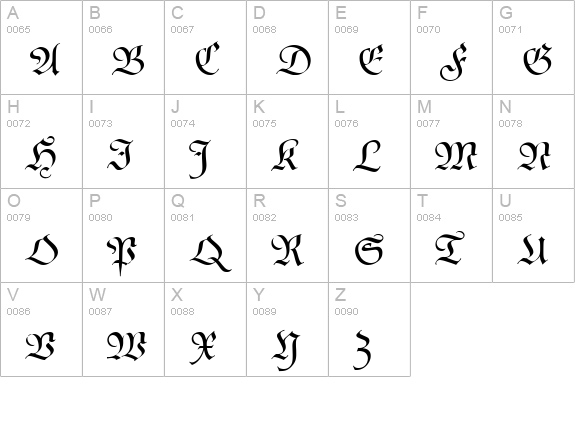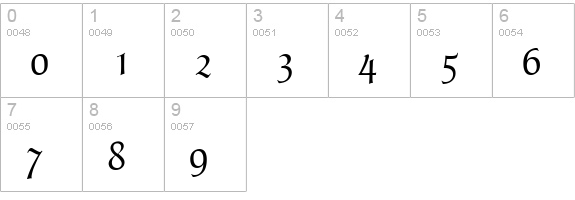
Poppl-Fraktur is a beautifully crafted typeface that effortlessly combines traditional calligraphic elements with a modern flair. Its intricate Fraktur style exudes elegance and sophistication, making it perfect for projects that require a touch of class and refinement. The sharp angular shapes and intricate details of each letter create a striking visual impact, while the overall design maintains a sense of balance and harmony. One of the best things about Poppl-Fraktur is that it is completely free to download at FontsMarket.com. This means that you can easily access this stunning font for your personal and commercial projects without any cost. Whether you're working on invitations, branding materials, or any other design project, Poppl-Fraktur is sure to add a touch of timeless charm and uniqueness. Download Poppl-Fraktur today from FontsMarket.com and elevate your designs with this exquisite and versatile typeface.